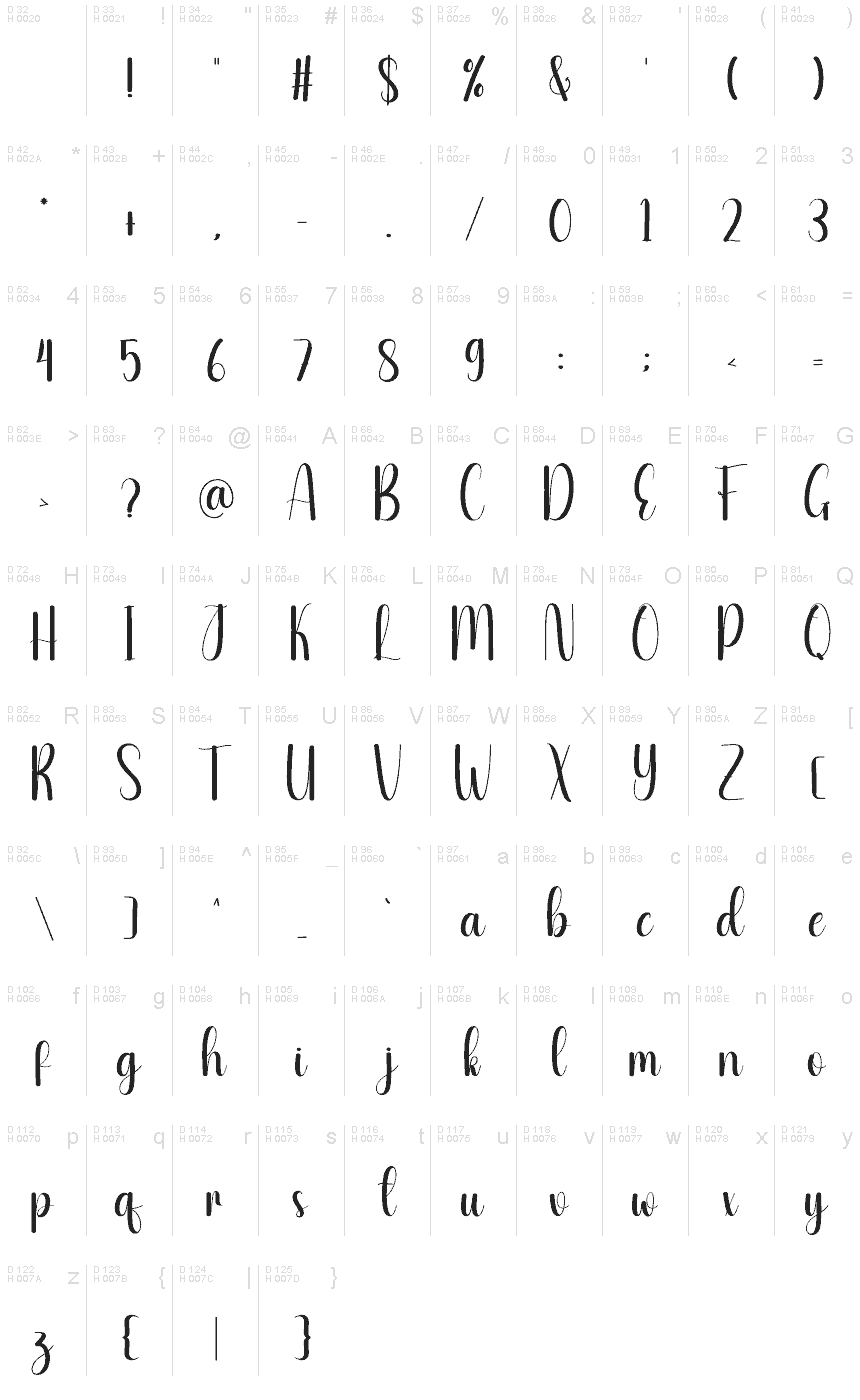
Wild
Wild font is a free calligraphy typeface by Andi Moz that gives juice to all eyes who stumble upon it. With its expressive, flowing, and energetic appearance, it showcases informal elegance as part of every stroke. It delivers casual sophistication with a modern script that has both an illustrative and penmanship-like character.
This condensed display font works magically in branding projects like cosmetics, skincare products, fashion labels, or magazine covers. At the same time, you can create standout wedding cards with it along with various invitations. Social media posts (quotes), web pages titles/posts/titles are additional use-case ideas for this beautiful font!